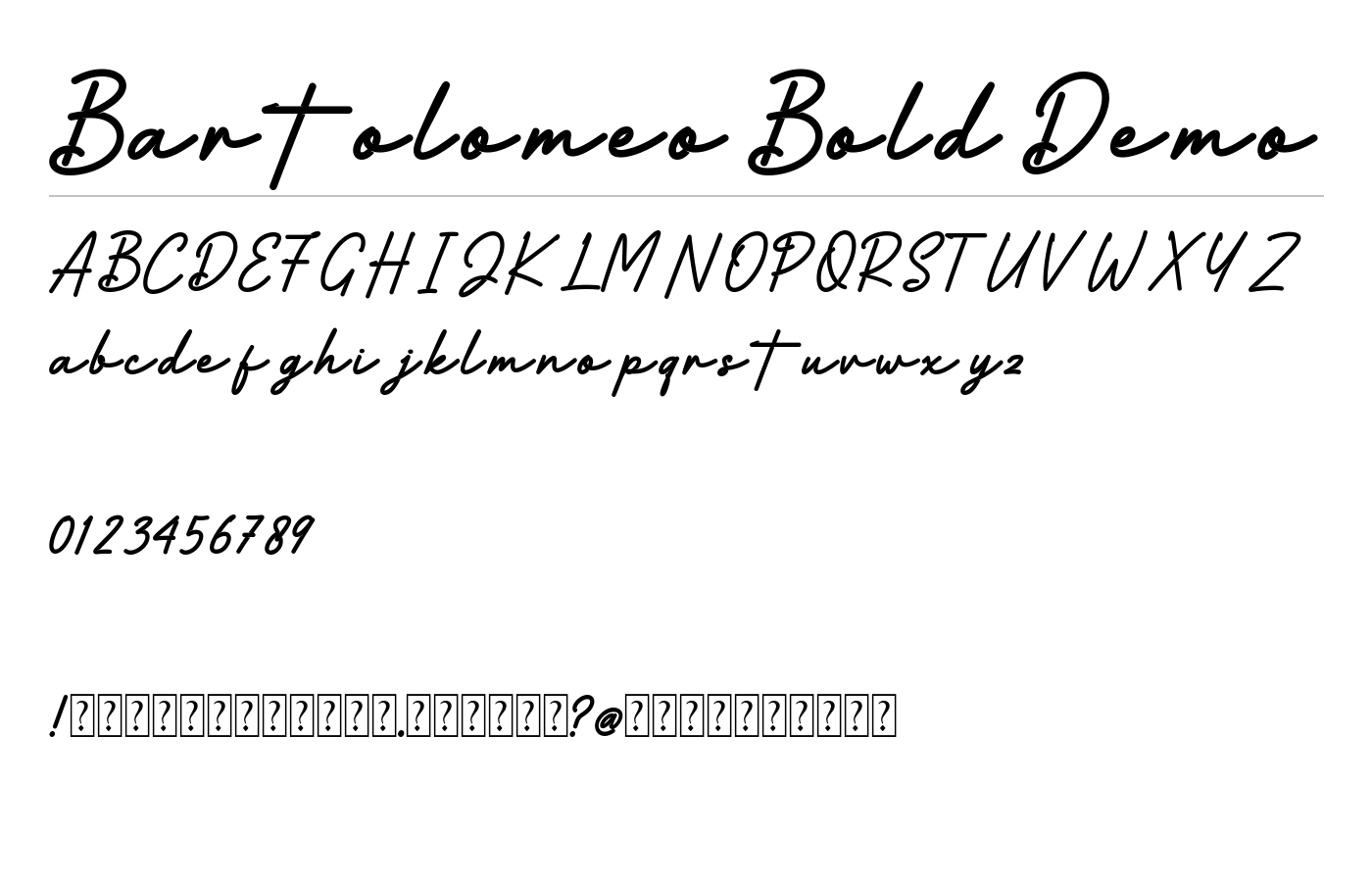
Bartolomeo Demo is a lively script font featuring smooth, connected strokes that mimic elegant handwriting with a bold presence. Its slightly slanted, fluid characters give it a casual yet refined feel, making it ideal for creative branding, invitations, and personal projects seeking a warm and approachable look. This font works best where a stylish, personal touch is desired without sacrificing readability.
Bartolomeo Demo Font
About Bartolomeo Demo Font
| Font family | Bartolomeo Demo Font |
| Designer | Taufik Tri Ariyanto from Ariya Works Studio |